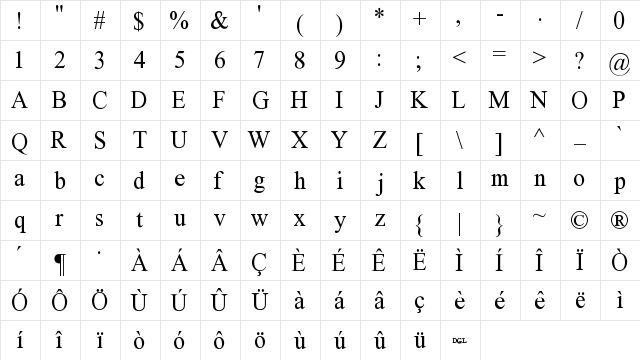
Temps Nouveau - DGL R(20 Font Preview
Temps Nouveau - DGL R(20
Temps Nouveau - DGL R(20 Font Details
Design Context for Temps Nouveau - DGL Typeface
Temps Nouveau - DGL offers clean, dependable letterforms without strong stylistic allegiance, making it a practical choice for designers who need flexibility.